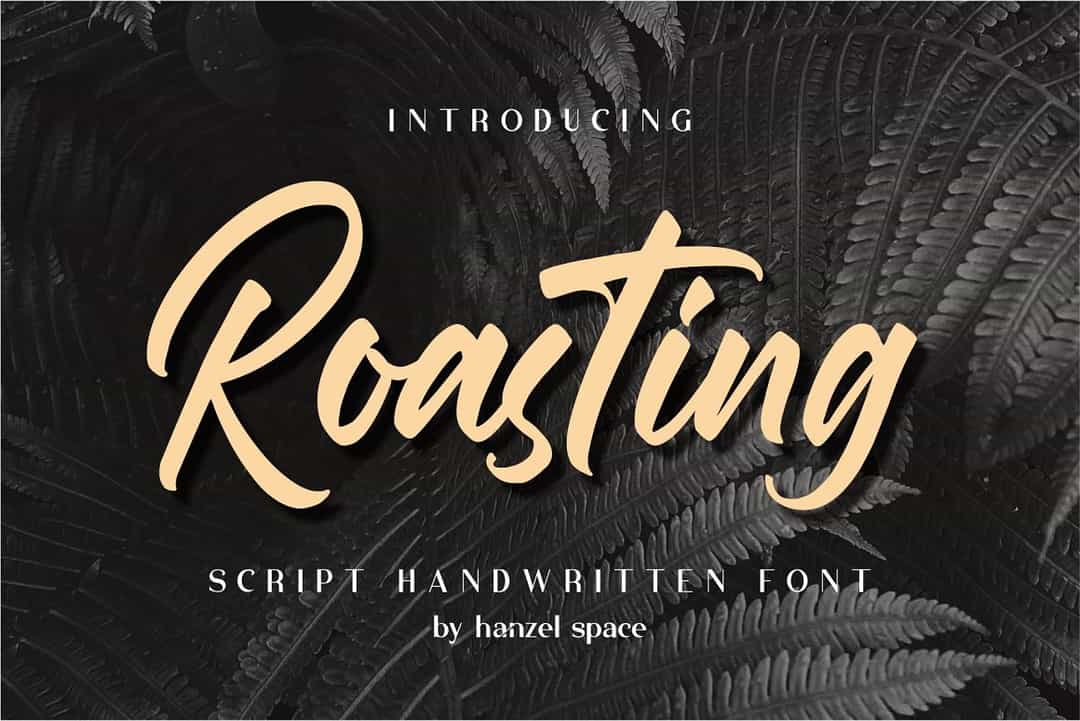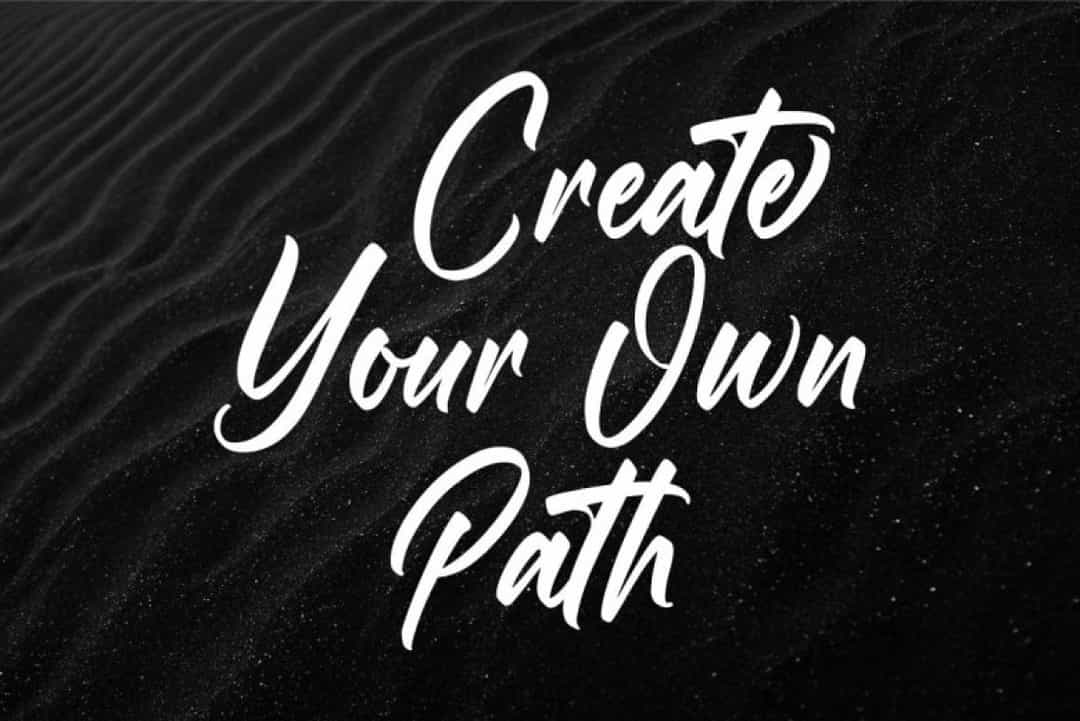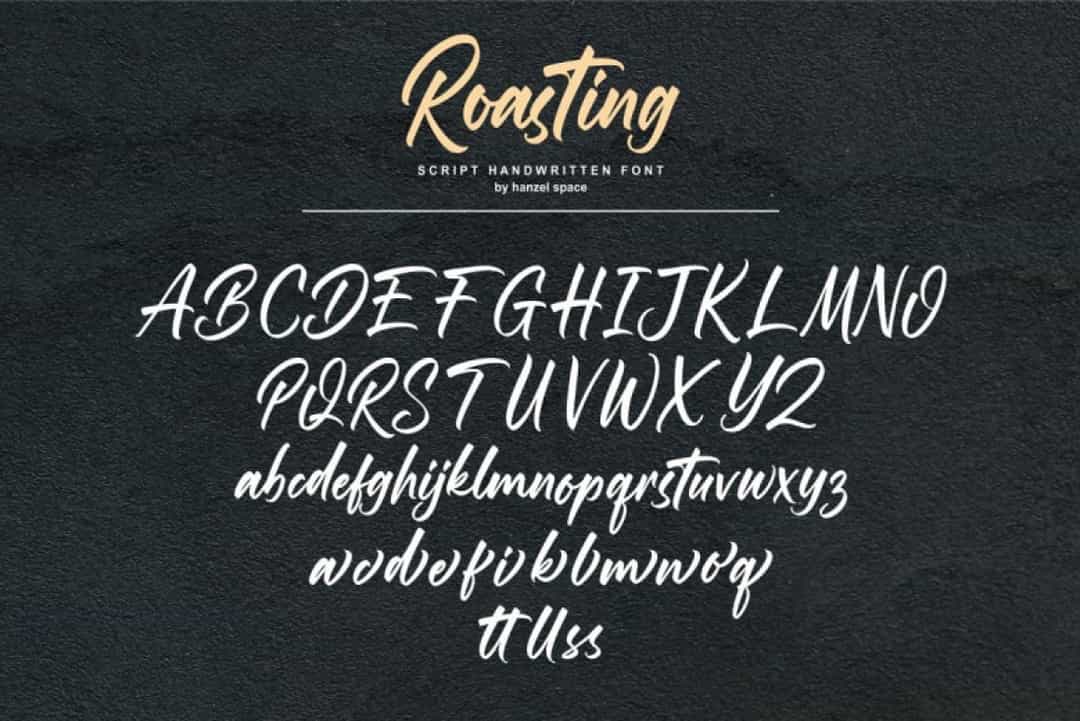
Roasting Handwritten script font is an elegant modern script font perfect for wedding invitations, branding cards, taglines or logos. Roasting features uppercase numerals and letters with numerous punctuation marks and ligatures allowing users to express the beauty of handwriting in an exquisite font – what more could you ask for!?